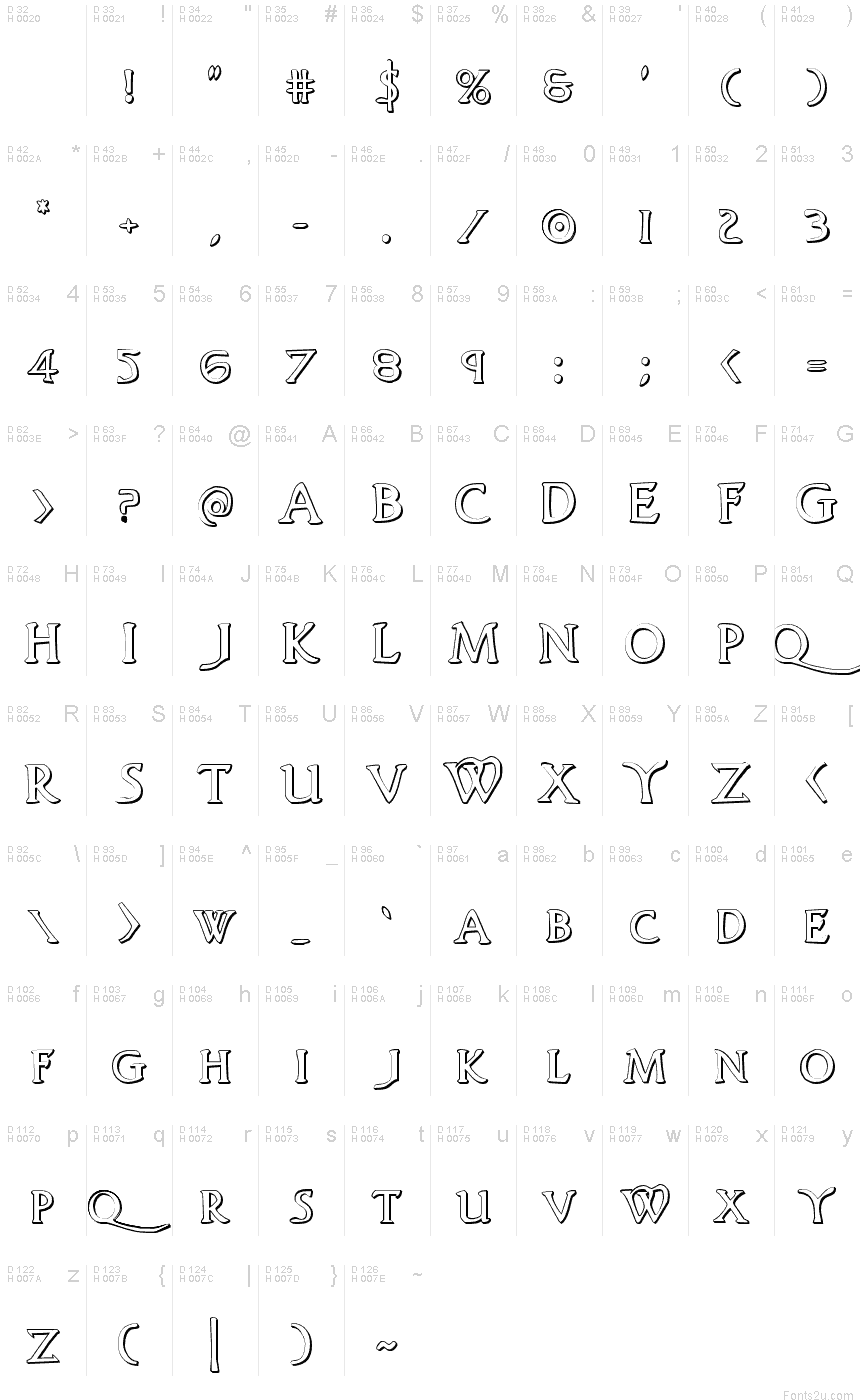
Woodgod 3D, designed in 2012 by Iconian Fonts, is a free old-school 3D display font with the weight of carved tavern lettering. Its serif capitals have uneven contours, changing stroke widths, and an offset shadow that makes the forms look raised rather than neatly typeset.
It can give brewery packaging and pub signage a carved emblem. For concert posters and magazine covers, the irregular drawing supplies a rough vintage title treatment that can become part of the illustration.
Woodgod 3D